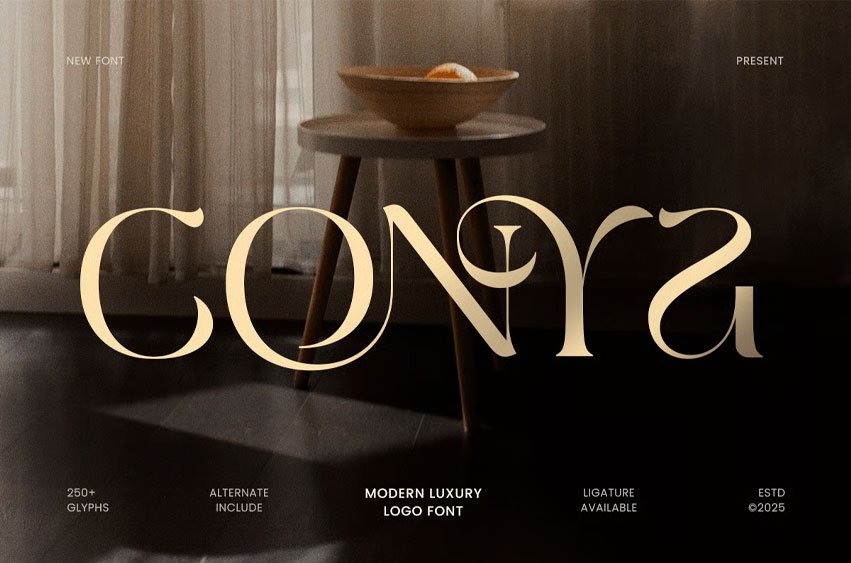
Conya Font is a modern luxury logo font designed to elevate your visual identity with elegance and sophistication. With its clean structure, refined curves, and balanced proportions, this font captures the essence of high-end design — perfect for fashion brands, creative studios, and premium packaging.
Inspired by modern minimalism and timeless luxury, CONYA blends simplicity and style seamlessly. Its graceful letterforms bring a touch of exclusivity to logos, invitations, magazines, and digital branding, making every composition feel polished and refined.
Whether used for editorial headlines or subtle branding, CONYA offers a professional and versatile appearance that adapts beautifully across print and digital platforms.
CONYA – Modern Luxury Logo Font Features
- Elegant and modern serif typeface for luxury branding
- Perfect for logos, magazines, invitations, and packaging
- Clean letterforms with refined contrast and balance
- Great for fashion, lifestyle, and creative industries
- Uppercase, lowercase, numerals, and punctuation included
- OpenType features for enhanced typography control
Create timeless elegance with CONYA – the ultimate modern luxury font for branding, fashion, and editorial design.